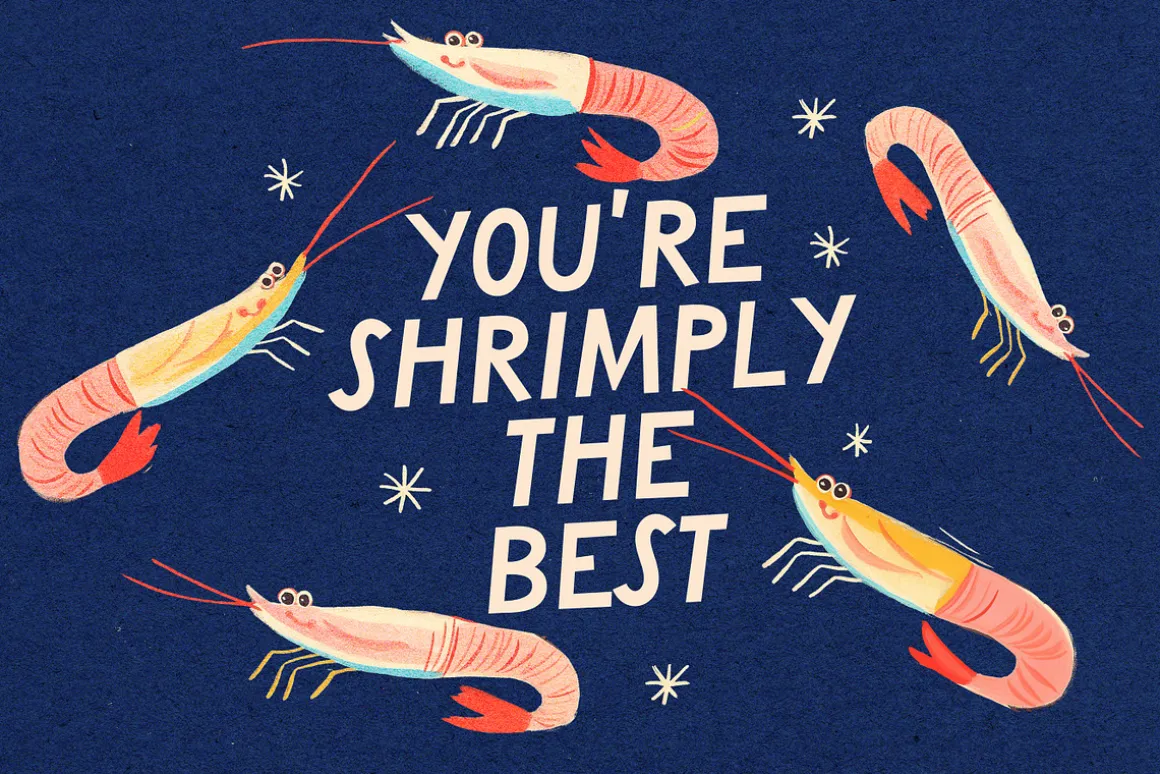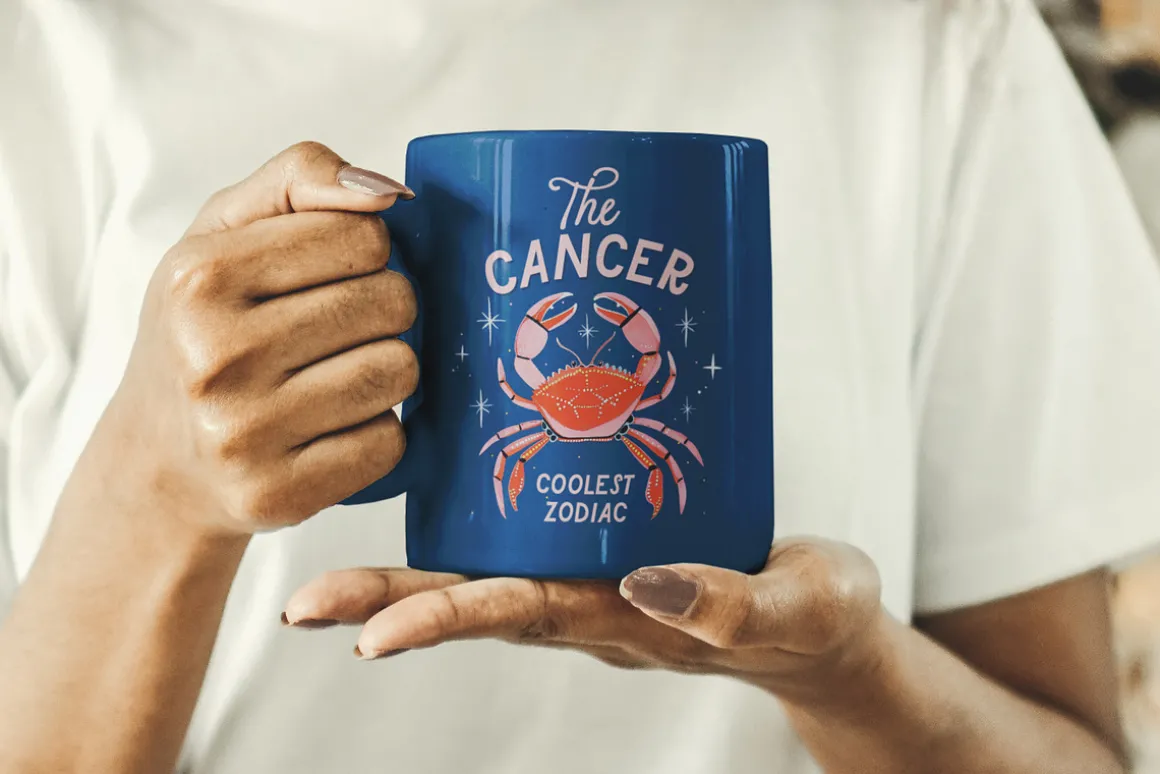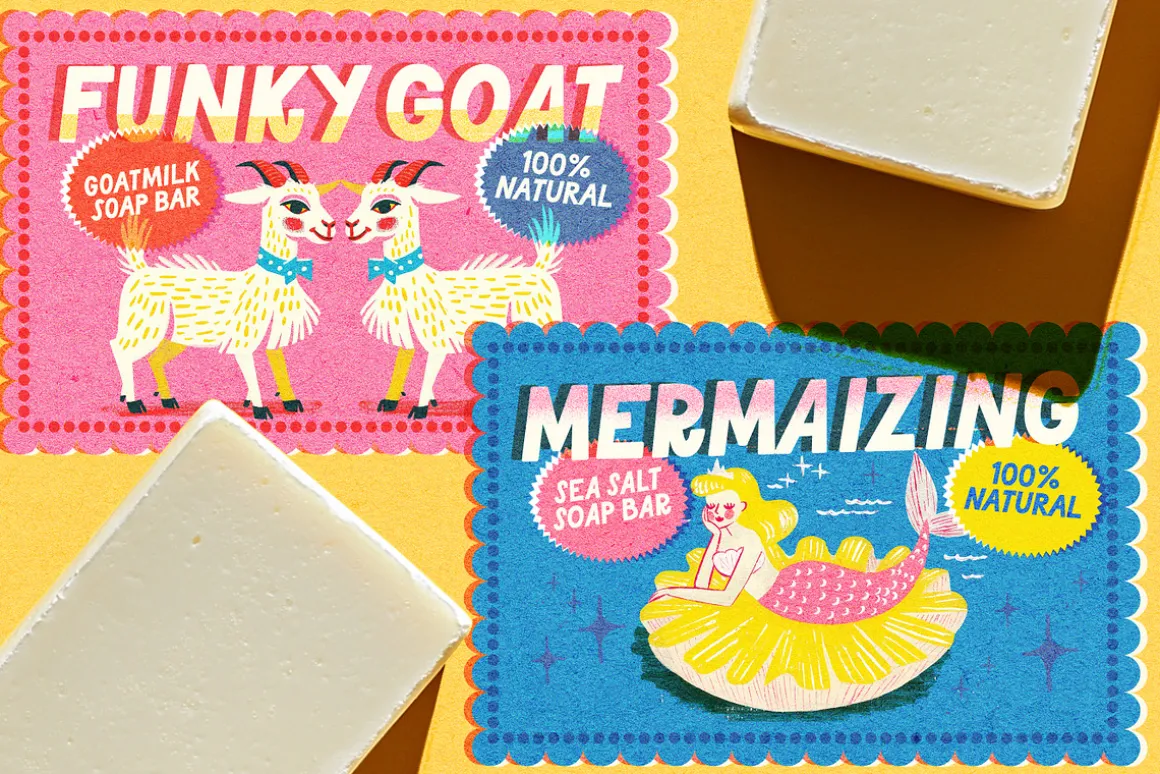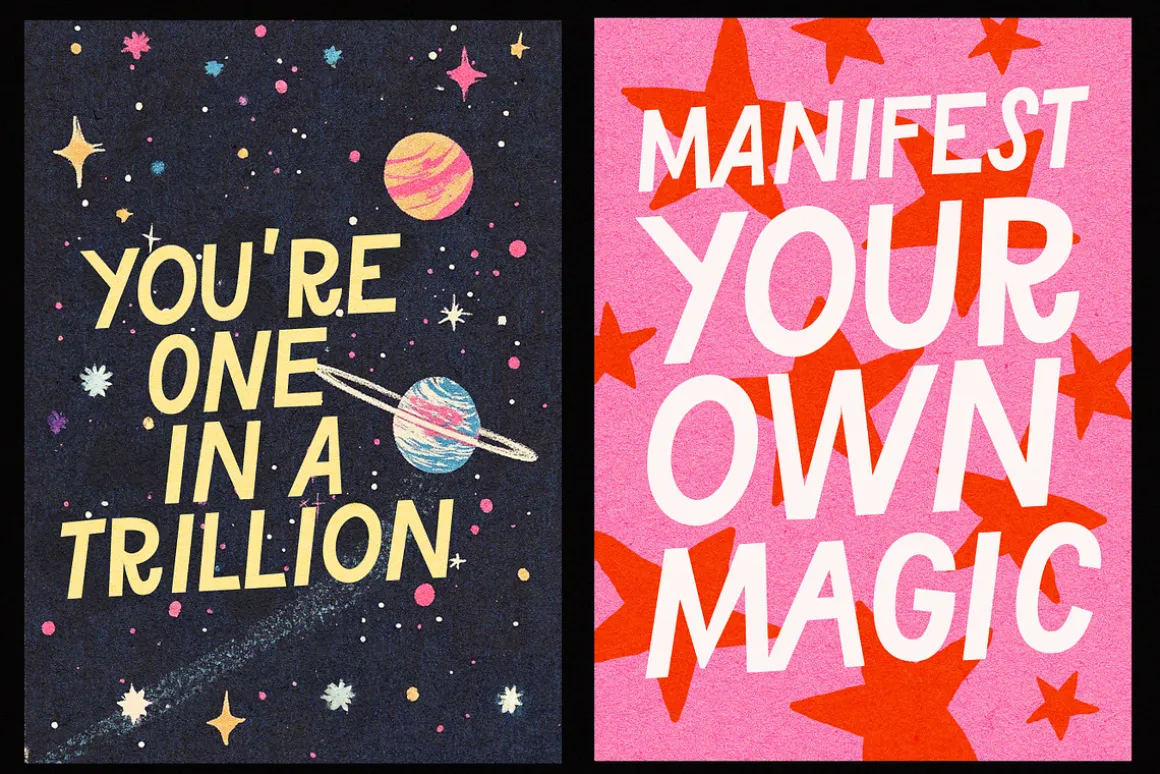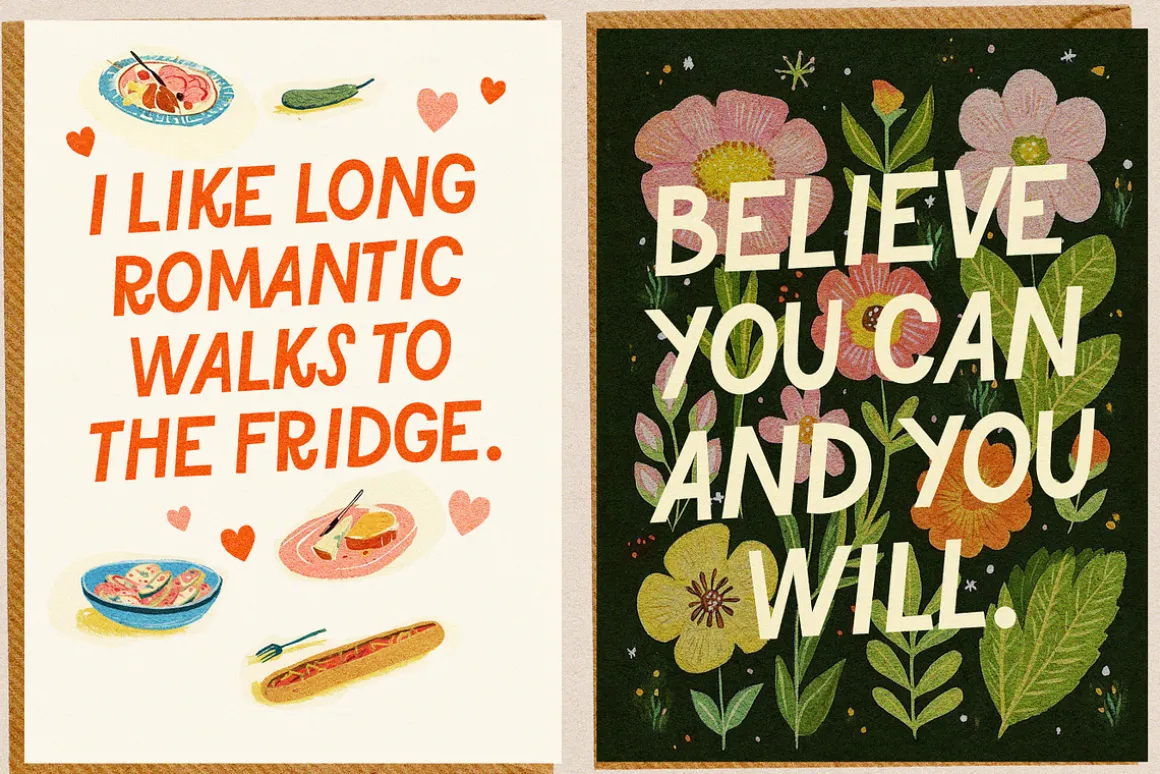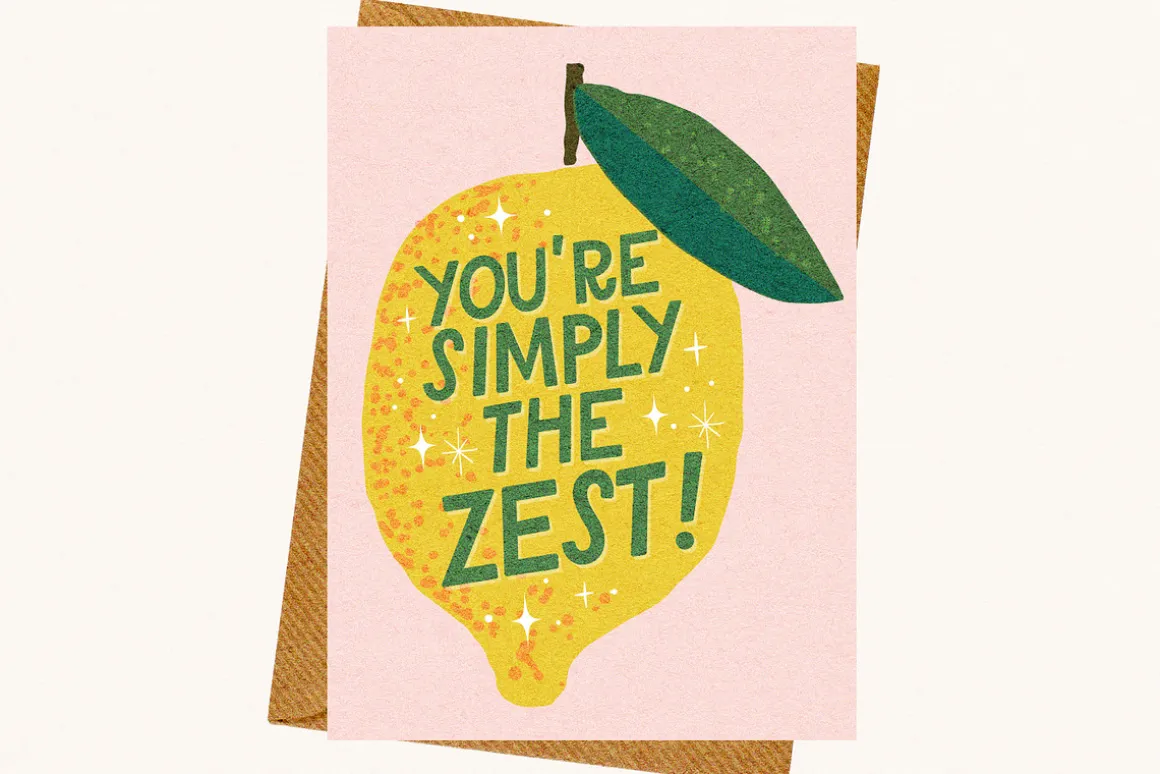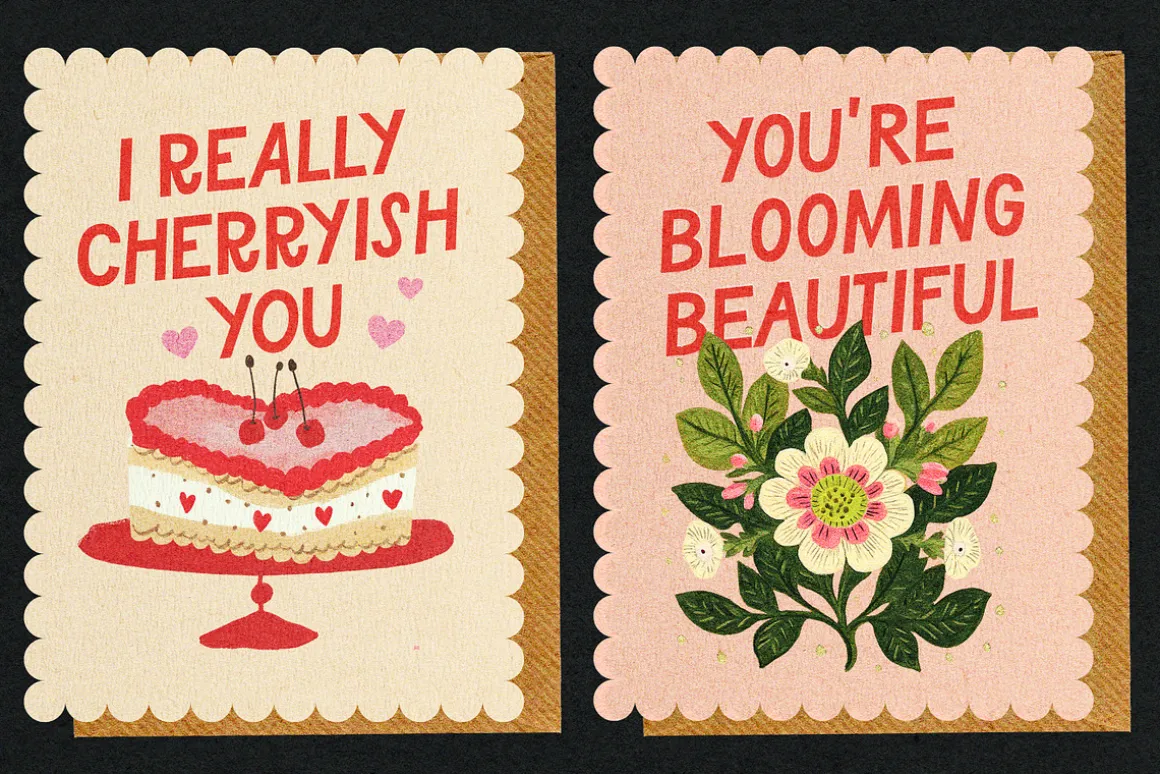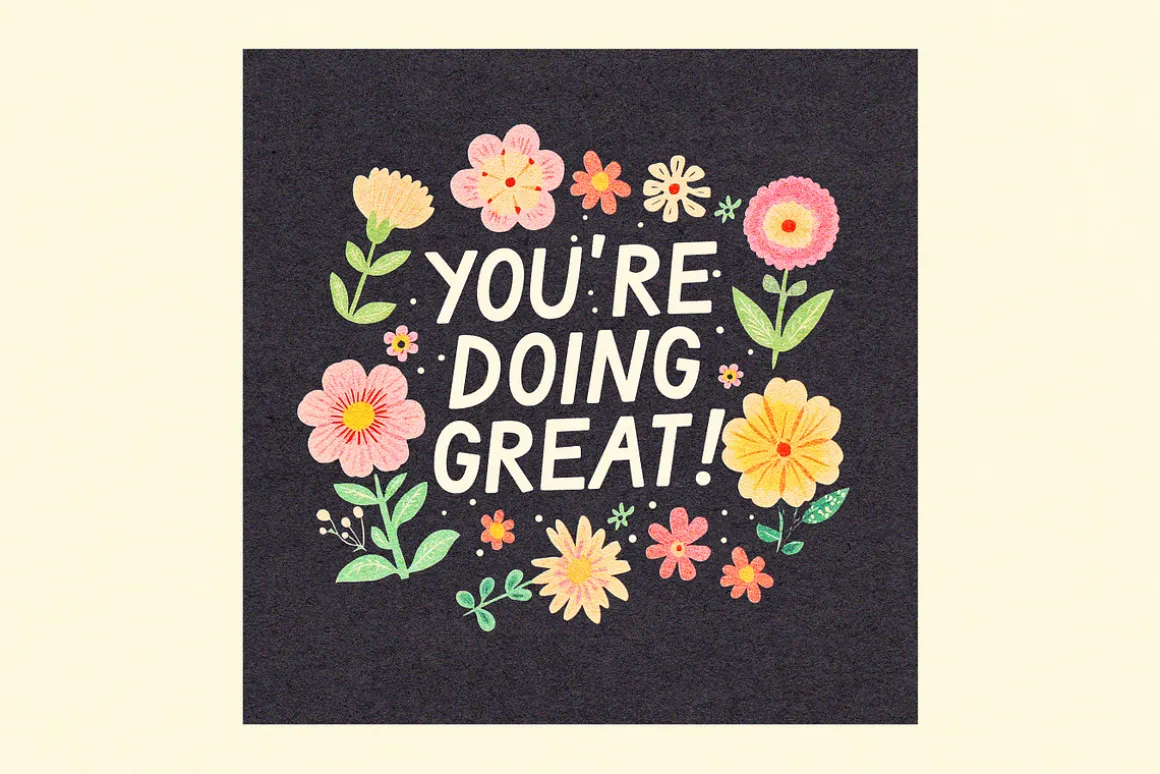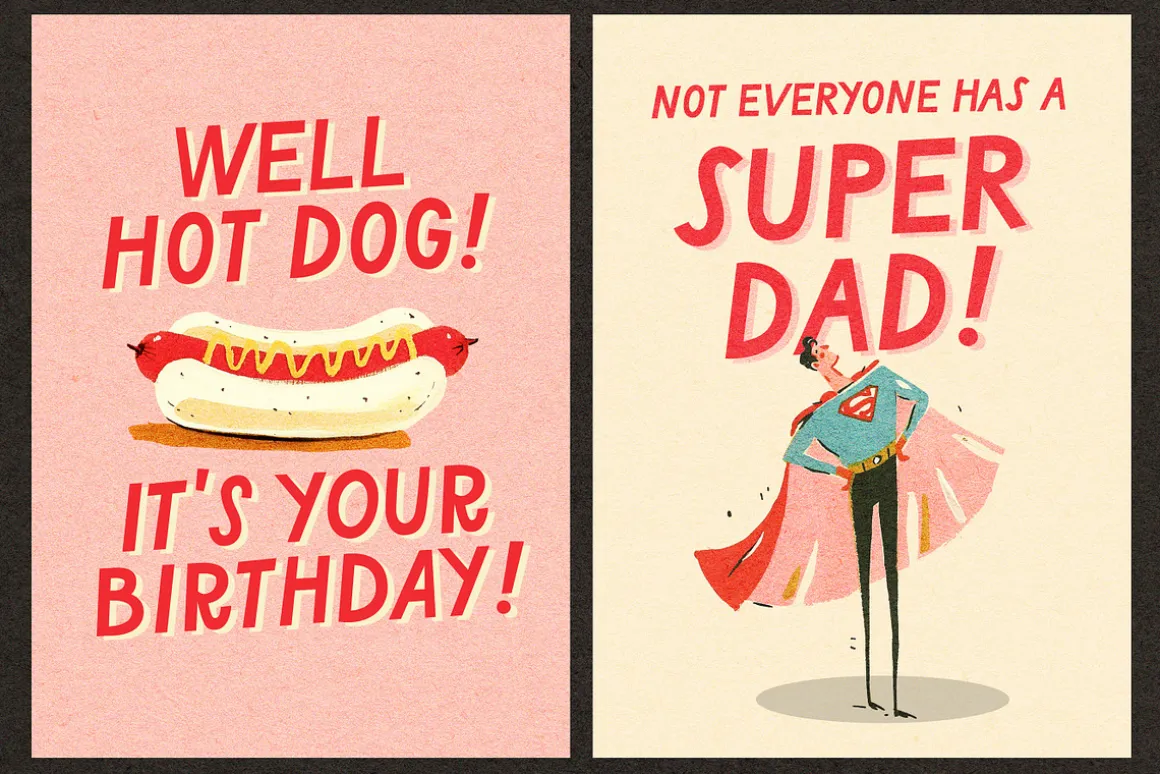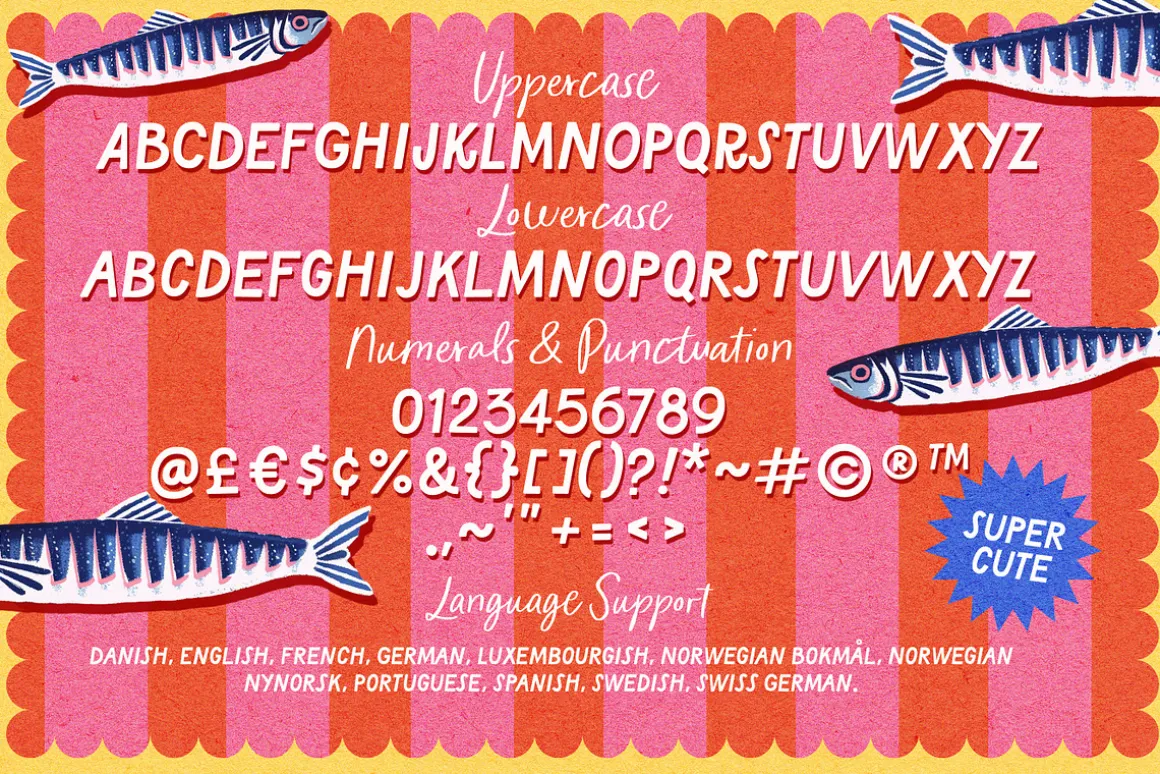
A little bit Funky and a lot quirky! – Say hello to Lucky Fish! – a loud & playful all caps font family with 6 styles to choose from.
Perfect for fun greetings, bold prints, cheeky branding and happy packaging!
Styles Included :Regular, Rounded, Medium, Medium Rounded, Heavy , Heavy Rounded.
Language support :
Danish, English, French, German, Luxembourgish, Norwegian Bokmål, Norwegian Nynorsk, Portuguese, Spanish, Swedish, Swiss German.